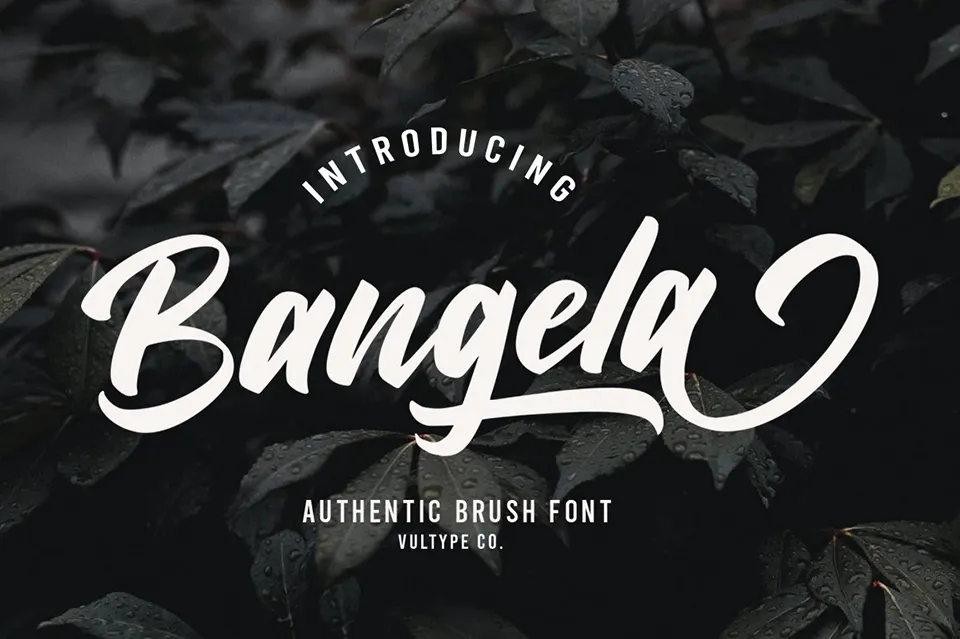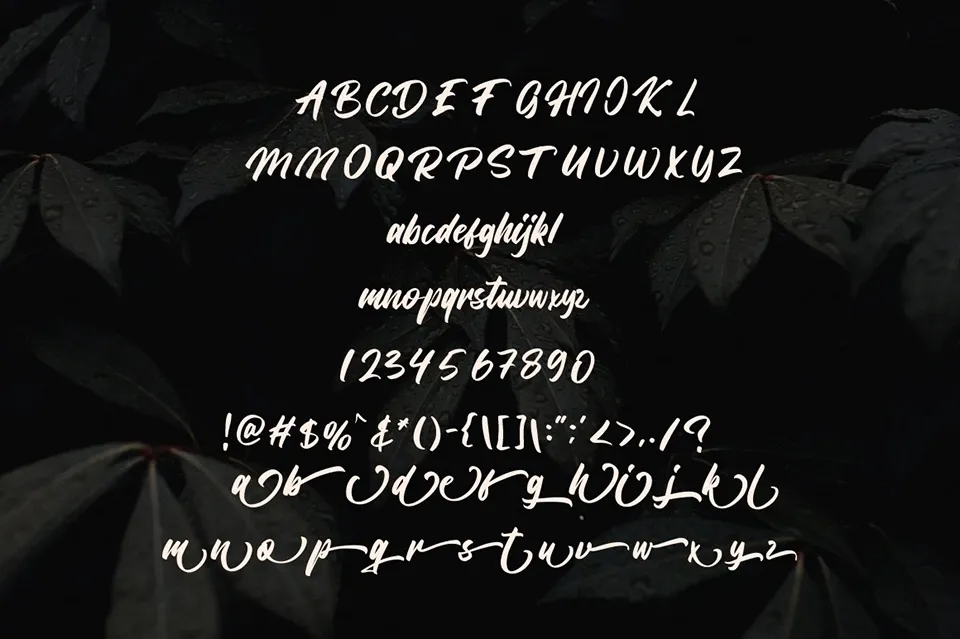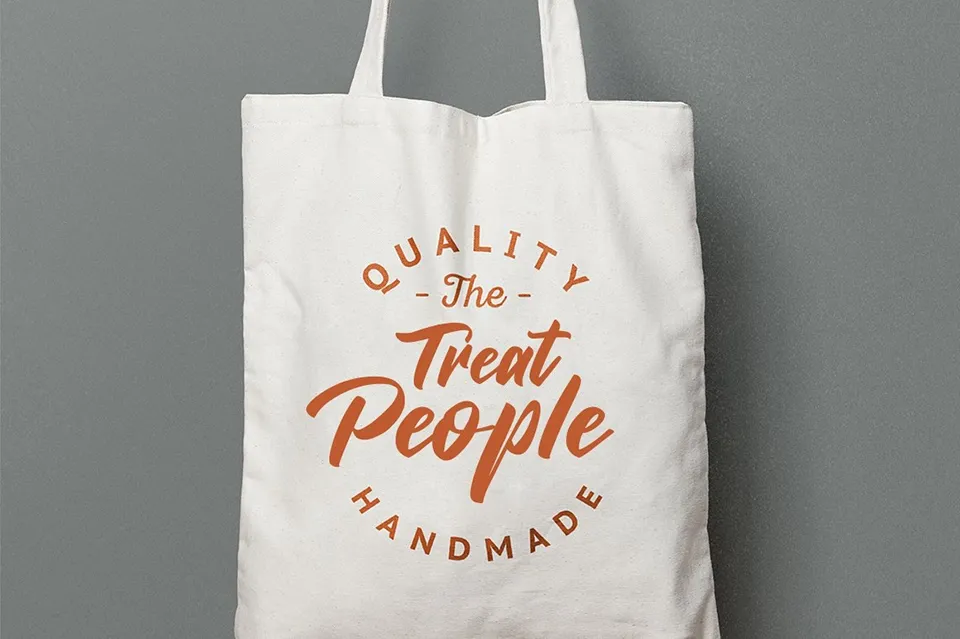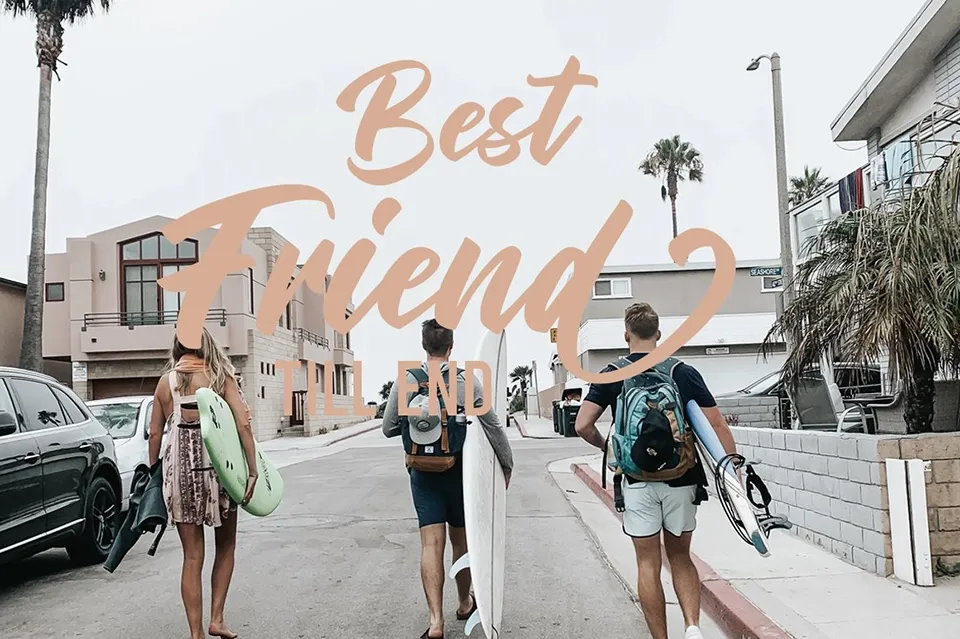
Bangela Font
Bangela Font is an authentic brush script font designed to bring a bold, hand-painted feel to your creative projects. Its expressive strokes and dynamic curves make it ideal for branding, headlines, posters, and any design that seeks a lively, handcrafted touch. With its modern brush style, Bangela Font stands out in both digital and print applications.